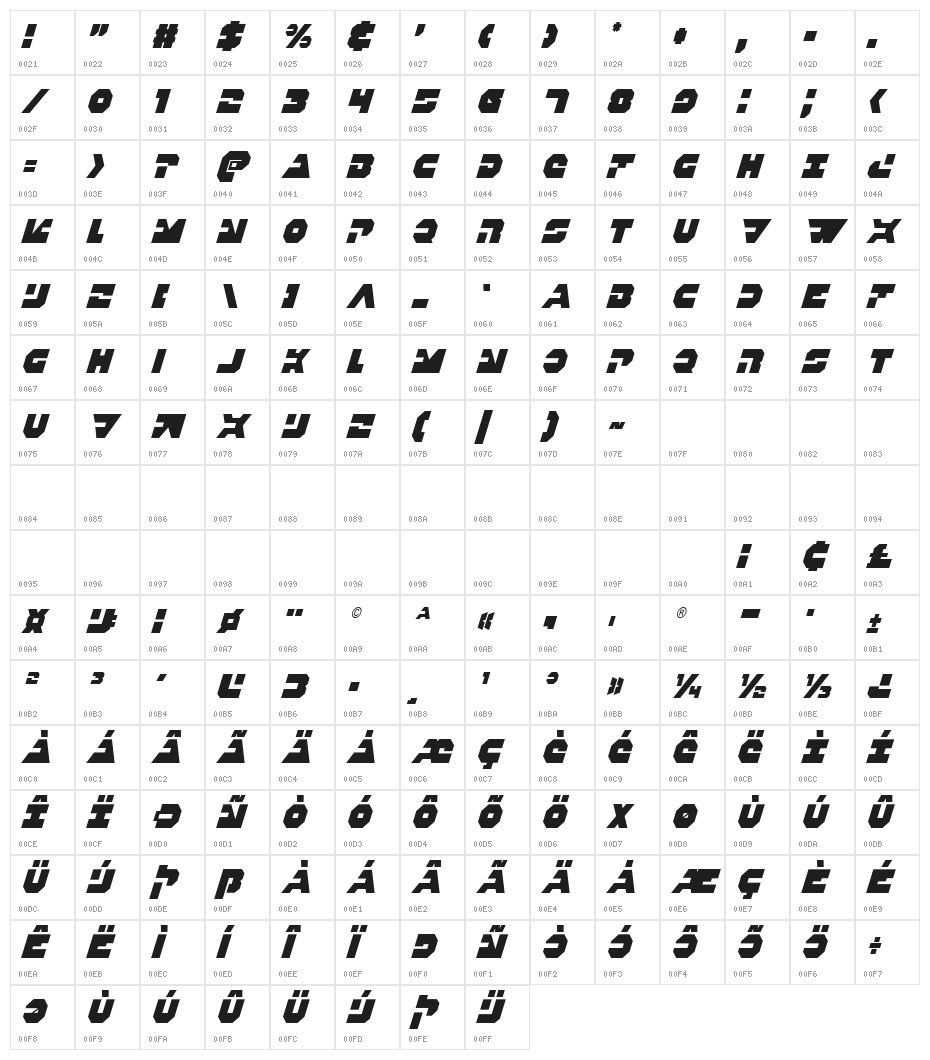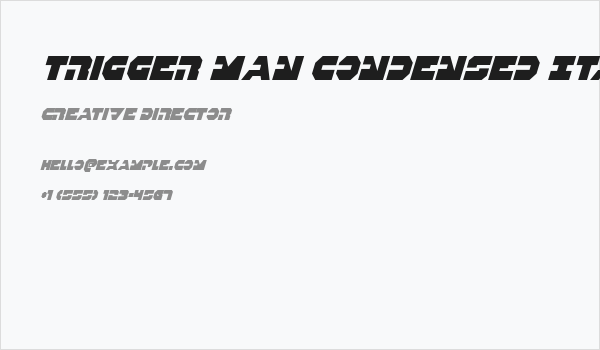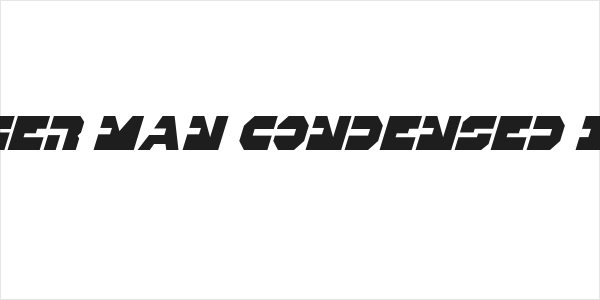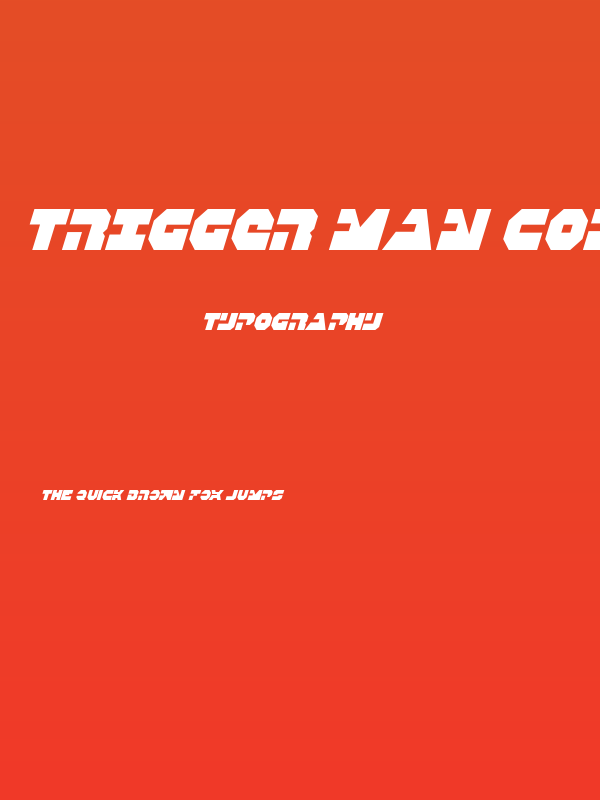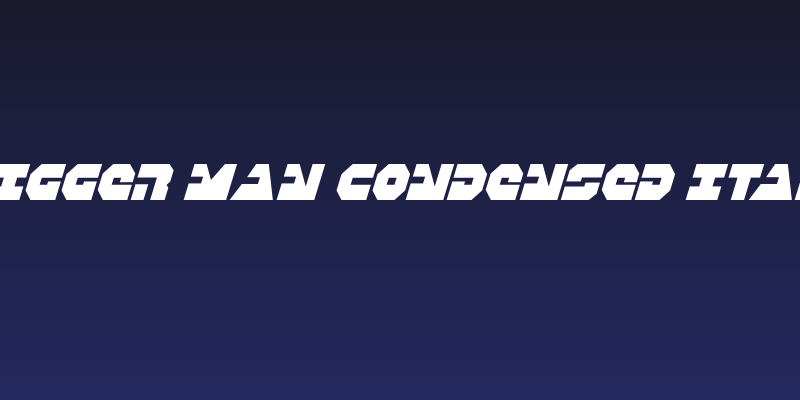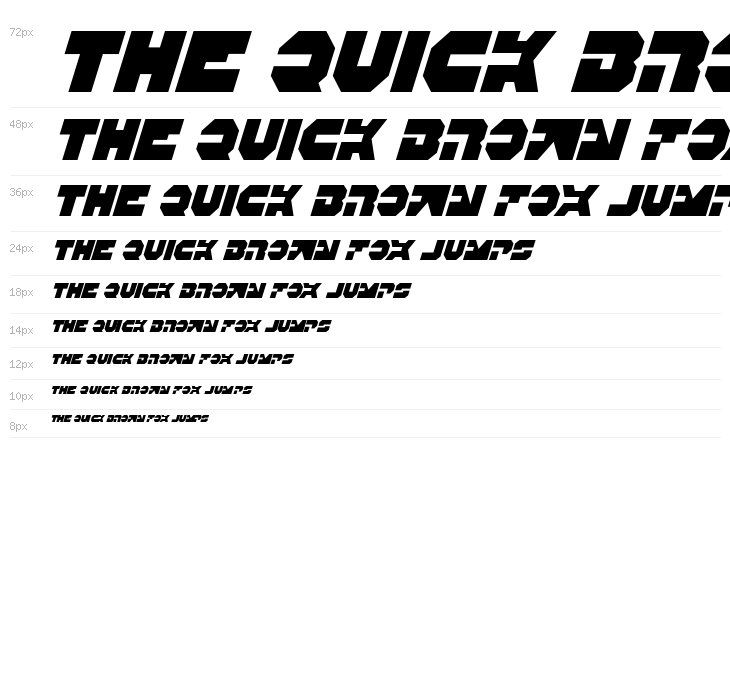
Trigger Man Condensed Italic Font
Trigger Man Condensed Italic Description
This font features a bold and angular design with a distinctly futuristic and geometric aesthetic. The characters are sharply cut with a condensed form, giving them a compact appearance. The italic slant adds a dynamic and forward-moving feel, enhancing its modern appeal. The uppercase and lowercase letters maintain a consistent style, with each character exhibiting a strong presence. The numbers and special characters follow the same design principles, ensuring uniformity across all elements. The overall style is striking and impactful, making it suitable for attention-grabbing designs.